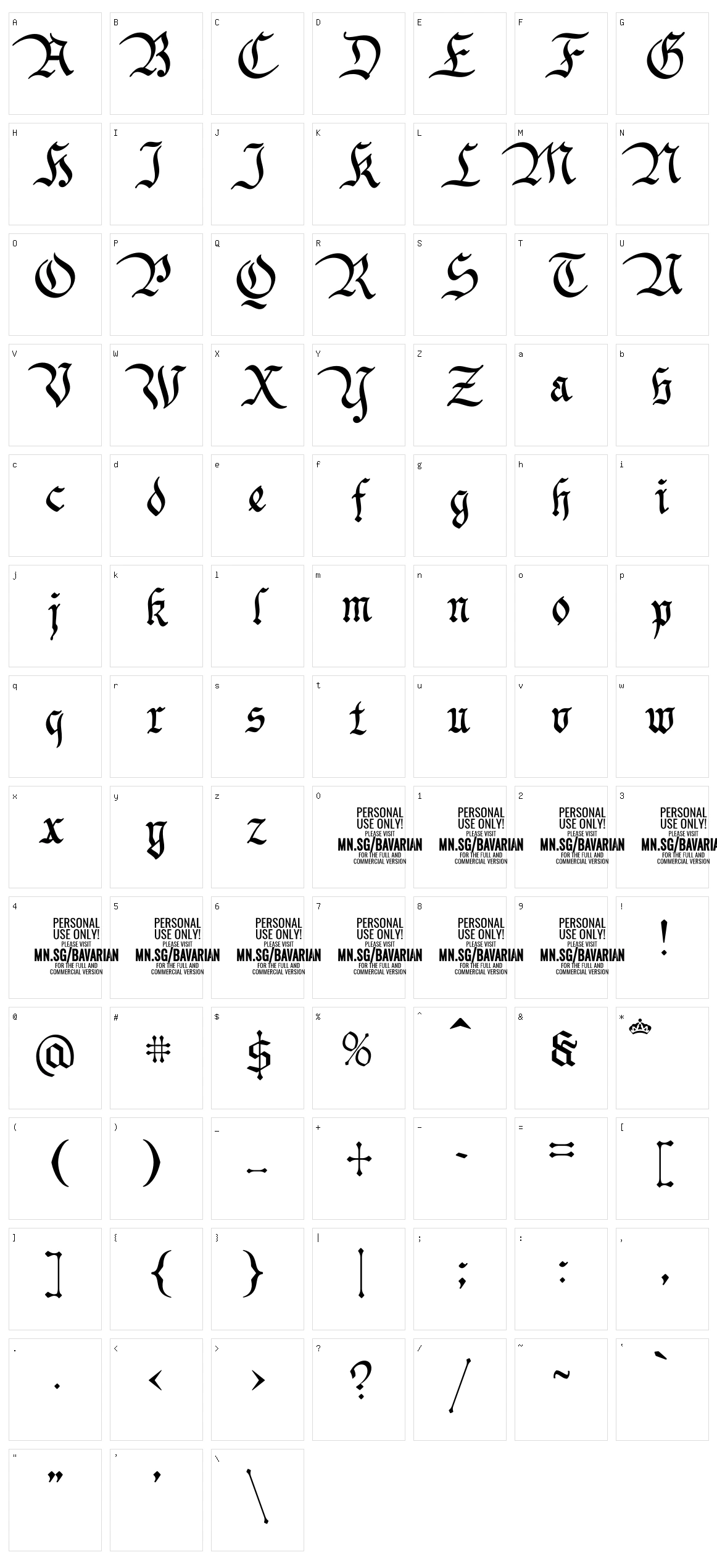
Bavarian Crown
Bavarian Crown is a decorative blackletter typeface.
This Medieval calligraphy lettering has a beautiful, traditional character and a genuine, honorable appearance. Drawn by Mans Greback between 2020-2022, the Bavarian Crown font will give any vintage project an antique look and brings the thoughts to the age of kings, queens and dragons.
Use * after any letter to add a crown.
Example: King*dom
The Bravarian Crown calligraphic family consists of five Middle Ages styles, complimenting each other:
Thin, Regular, Bold as well as the accentuated Outline and Outline Bold.
The font is built with advanced OpenType functionality and has a guaranteed top-notch quality, containing stylistic and contextual alternates, ligatures and more features; all to give you full control and customizability.
It has extensive lingual support, covering all Latin-based languages, from Northern Europe to South Africa, from America to South-East Asia.
It contains all characters and symbols you'll ever need, including all punctuation and numbers.